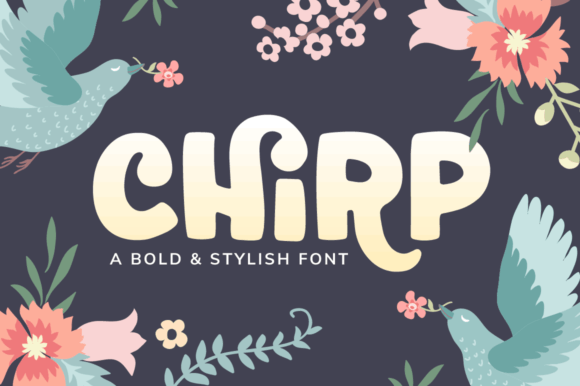
Introducing Chirp Font: A Bold and Stylish Hand-Drawn Display Font
In the world of typography, fonts play a crucial role in conveying messages, expressing emotions, and creating visual identities. Among the numerous fonts available, Chirp Font stands out as a bold and stylish, hand-drawn display font that has gained significant attention in recent times. In this article, we’ll delve into the features, benefits, and uses of Chirp Font, exploring what makes it a perfect choice for big, bold headings.
What is Chirp Font?
Chirp Font is a modern, hand-drawn display font designed to make a statement. Its characters boast simplicity and charm, making it an ideal choice for creating eye-catching headings, titles, and captions. The font’s bold and stylish appearance is perfect for grabbing attention, adding a touch of personality to your designs, and conveying confidence.
Key Features of Chirp Font
- Hand-drawn design: Chirp Font is carefully crafted by hand, giving it a unique, organic feel that sets it apart from machine-generated fonts.
- Bold and stylish: The font’s bold appearance makes it perfect for creating big, bold headings that demand attention.
- Simplicity and charm: Chirp Font’s characters have a simple, yet charming quality that makes them easy to read and visually appealing.
- Ligatures and alternate characters: The font includes a few ligatures and alternate characters, allowing designers to add an extra bit of personality to their text.
Benefits of Using Chirp Font
So, why choose Chirp Font for your design projects? Here are some benefits of using this versatile font:
- Attention-grabbing: Chirp Font’s bold appearance ensures that your headings and titles grab attention, drawing readers into your content.
- Unique and creative: The font’s hand-drawn design and ligatures give it a unique, creative feel that sets it apart from more traditional fonts.
- Versatile: Chirp Font is suitable for a wide range of design projects, from posters and flyers to logos, branding, and digital media.
- Easy to read: Despite its bold appearance, Chirp Font remains easy to read, making it perfect for headings and titles that need to convey information quickly.
Uses of Chirp Font
Chirp Font’s versatility makes it suitable for various design projects, including:
- Posters and flyers: Create eye-catching posters and flyers with Chirp Font’s bold, attention-grabbing headings.
- Logos and branding: Use Chirp Font to create unique, memorable logos and branding elements that reflect your brand’s personality.
- Digital media: Chirp Font is perfect for digital media, including social media graphics, website headers, and email newsletters.
- Advertising: The font’s bold appearance makes it ideal for creating attention-grabbing ad copy that drives results.
Tips for Using Chirp Font Effectively
To get the most out of Chirp Font, follow these tips:
- Use it sparingly: Chirp Font’s bold appearance can be overwhelming if overused. Use it sparingly to create emphasis and draw attention.
- Pair it with complementary fonts: Combine Chirp Font with complementary fonts to create visual interest and add depth to your designs.
- Experiment with colors and textures: Chirp Font looks great in a variety of colors and textures. Experiment to find the perfect combination for your design.
In conclusion, Chirp Font is a bold and stylish, hand-drawn display font that’s perfect for creating big, bold headings that grab attention. Its simplicity, charm, and ligatures make it a versatile choice for various design projects, from posters and flyers to logos, branding, and digital media. By following the tips outlined above, you can use Chirp Font effectively to add personality, creativity, and emphasis to your designs.